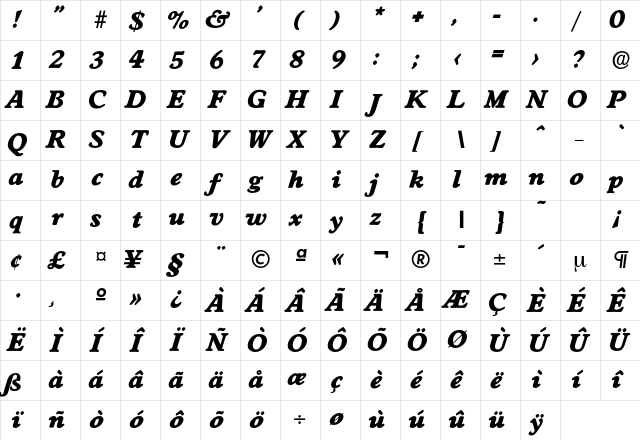
Worchester-ExtraBoldIta Regular
Complete Worchester-ExtraBoldIta Regular glyph index. Displaying only characters natively supported by Worchester-ExtraBoldIta Regular font.
Design Context for Worchester-ExtraBoldIta
Worchester-ExtraBoldIta is a composed and adaptable typeface that performs quietly and consistently across a wide range of design contexts. Its bold stroke weight gives it real presence on the page.